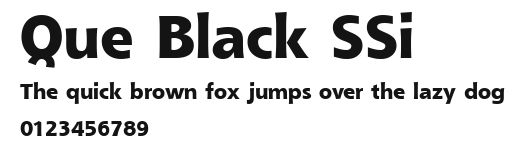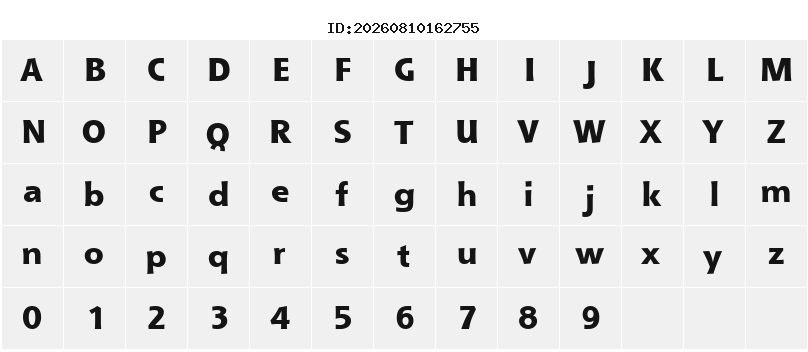
• Font Name: Que Black SSi
• Font Style: Extra Bold
• Full Font Name: Que Black SSi Extra Bold
About Que Black SSi.ttf
Que Black SSi.ttf is a modern, elegant sans-serif font designed for ultimate readability and visual harmony. Perfect for branding, headlines, web design, and print materials.